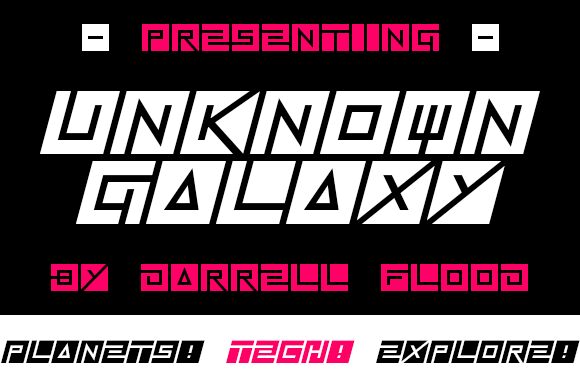
Unknown Galaxy Italic
Looking to add a touch of sci-fi intrigue to your next creative project? Look no further than Unknown Galaxy Italic, a stunning display font with an otherworldly edge. Designed by Darrell Flood, this semi-light font boasts a wide width and negative futuristic style that's perfect for everything from edgy tech startups to retro-futuristic movie posters. Whether you're designing a sleek new app interface or crafting eye-catching social media graphics, Unknown Galaxy Italic is the ideal choice for any project that needs a bold, futuristic look.